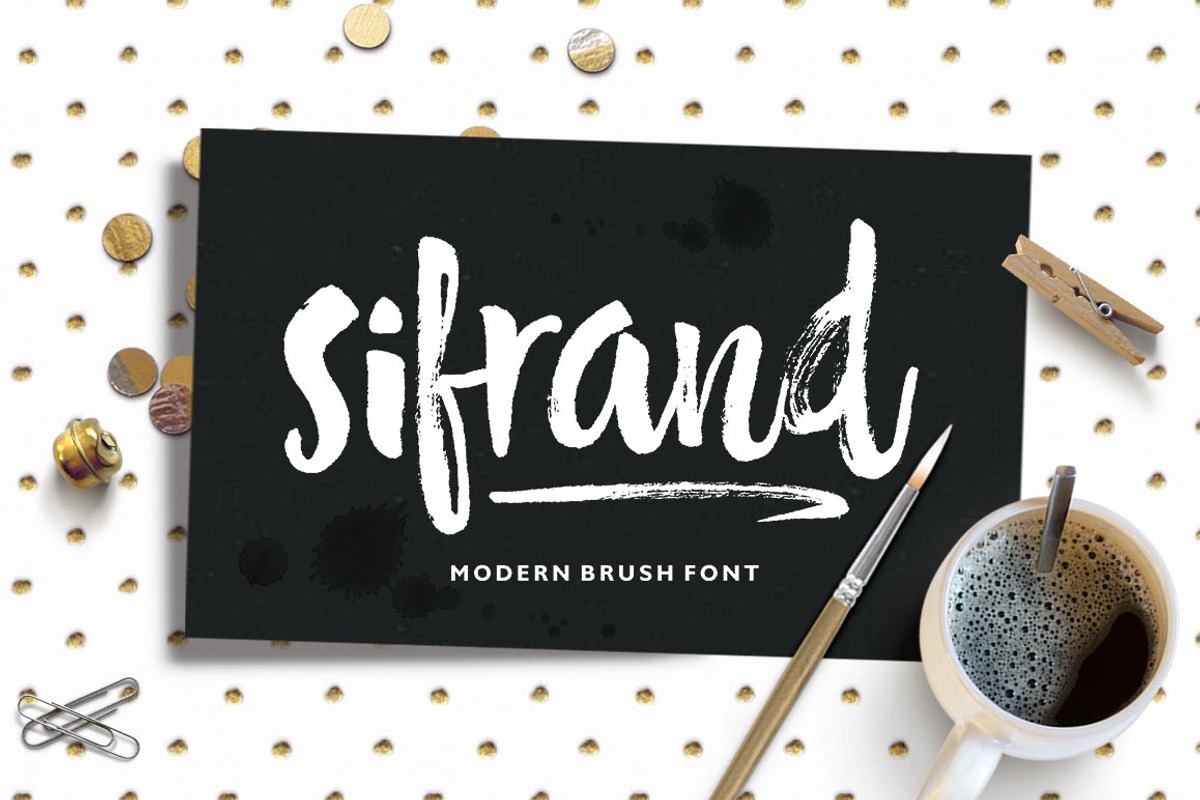
Sifrand Script Font is perfect for elegant branding projects, sophisticated logo design, luxury packaging materials, refined wedding invitations, upscale business communications, high-end fashion labels, premium stationery design, artistic signature creation, exclusive brand identities, cultural event promotions, elegant social media graphics, and distinguished typography applications.
Sifrand Script Font is exciting because it embodies sophisticated elegance and refined artistry through its masterfully crafted script letterforms that flow with graceful precision and timeless sophistication, creating an atmosphere of luxury and distinguished taste. This exceptional typeface features flowing curves and elegant connections that demonstrate meticulous attention to calligraphic detail and artistic excellence. The font's refined character elevates every application with understated luxury and professional sophistication that speaks to discerning audiences who appreciate quality and artistic refinement.
Sifrand Script Font includes comprehensive font families: Regular Elegant Style, Bold Sophisticated Weight, Light Graceful Touch, Medium Refined Balance, Italic Flowing Movement, Condensed Luxury Format, Extended Prestigious Width, Decorative Flourish Elements, Shadow Depth Effects, and Special Elegant Symbols, providing complete solutions for sophisticated script typography and refined brand communications that demand artistic excellence.
This distinguished typography solution transforms ordinary communications into elegant artistic expressions through its sophisticated script aesthetic and refined calligraphic craftsmanship. Sifrand Script Font Free Download enables designers and luxury brands to access premium script typography that instantly adds sophistication, artistic elegance, and refined appeal to any creative project. The font's meticulously crafted letterforms ensure exceptional visual impact while maintaining beautiful readability and distinctive script character.
Luxury brands, high-end designers, and sophisticated businesses trust Sifrand Script Font for its ability to communicate elegance, refinement, and artistic excellence to discerning audiences who appreciate sophisticated design and premium brand experiences. The typeface's elegant construction performs beautifully across various applications, from intimate luxury communications to large-scale prestigious branding campaigns. Its extensive character support includes multilingual capabilities and elegant design elements that enhance sophisticated brand presentations.
The design excellence behind Sifrand Script Font represents the finest traditions of calligraphic artistry and script typography, creating letterforms that honor classical elegance while embracing contemporary sophistication. This refinement-focused approach creates a font that feels genuinely artistic while maintaining professional versatility across different luxury contexts and sophisticated brand expressions.
Whether creating luxury brand identities, elegant marketing materials, or sophisticated design projects, this script font delivers exceptional results that embody artistic refinement and elegant sophistication. Download Sifrand Script Font today and discover how premium script typography can transform your design projects into sophisticated expressions of artistic elegance, refined beauty, and the timeless sophistication that defines the most distinguished brands and communications.